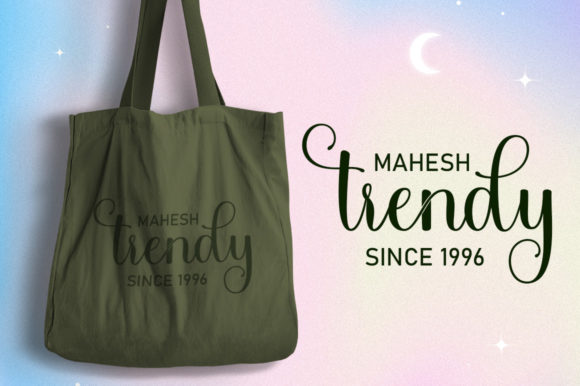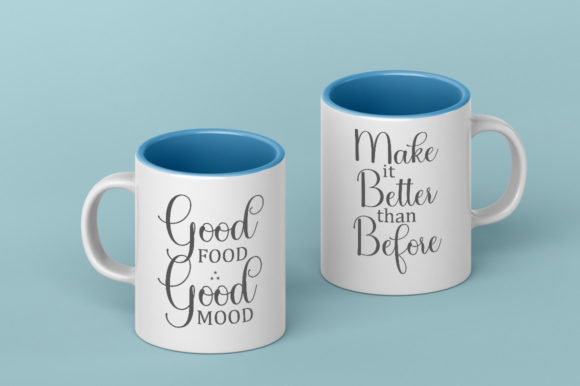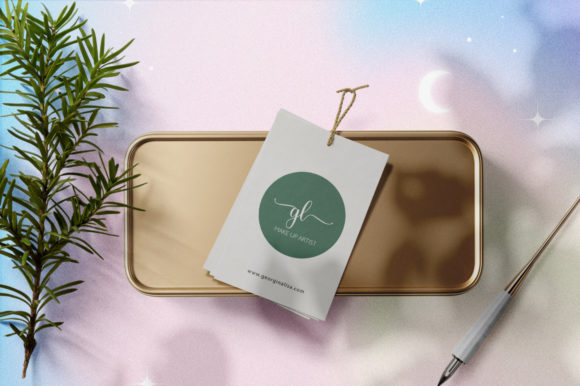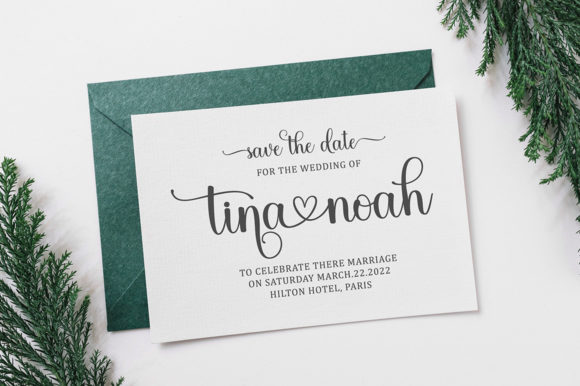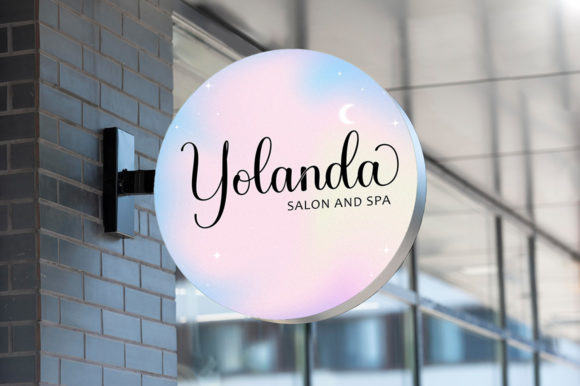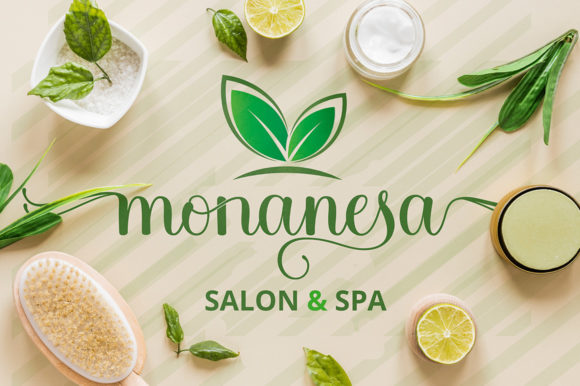
Bridal Ceremony Font: The Perfect Choice for Romantic Designs
Are you a designer or crafter looking for a font that exudes romance and elegance? Look no further than the Bridal Ceremony font. This beautiful script font is perfect for creating stunning title designs, invitations, and other materials that require a touch of sophistication and love. In this article, we’ll explore the features and benefits of the Bridal Ceremony font and how it can elevate your designs.
What is Bridal Ceremony Font?
Bridal Ceremony is a script font that is subtle, romantic, and has a very unique love swash. The font’s design is inspired by traditional calligraphy, with flowing lines and delicate curves that give it a feminine and elegant feel. The love swash feature adds a special touch to the font, making it perfect for designs that require a romantic and whimsical feel.
Features of Bridal Ceremony Font
The Bridal Ceremony font has several features that make it an excellent choice for designers and crafters. Some of its key features include:
- Unique Love Swash: The font’s love swash feature is a distinctive element that sets it apart from other script fonts. It’s perfect for adding a romantic touch to your designs.
- Subtle and Romantic: The font’s subtle and romantic design makes it perfect for creating elegant and sophisticated designs.
- Script Font: The Bridal Ceremony font is a script font that mimics traditional calligraphy, giving it a personal and handmade feel.
- Versatile: The font is versatile and can be used for a wide range of design projects, from title designs to packaging designs.
Uses of Bridal Ceremony Font
The Bridal Ceremony font is perfect for a wide range of design projects, including:
- Title Designs: Use the font to create stunning title designs for books, movies, and other projects.
- Invitations: The font is perfect for creating beautiful and elegant invitations for weddings, parties, and other events.
- Stationery Designs: Use the font to create custom stationery, including letterheads, greeting cards, and more.
- Branding and Logos: The font can be used to create elegant and sophisticated logos and branding materials.
- Greeting Cards: Use the font to create beautiful and heartfelt greeting cards for special occasions.
- T-Shirts and Apparel: The font is perfect for creating custom t-shirts and apparel with a romantic and elegant touch.
- Packaging Designs: Use the font to create stunning packaging designs for products, including gift boxes, labels, and more.
- Posters: The font can be used to create eye-catching posters for events, promotions, and more.
Benefits of Using Bridal Ceremony Font
The Bridal Ceremony font offers several benefits to designers and crafters, including:
- Elegance and Sophistication: The font adds an touch of elegance and sophistication to designs, making them perfect for high-end projects.
- Romantic Feel: The font’s romantic feel makes it perfect for designs that require a touch of love and whimsy.
- Versatility: The font can be used for a wide range of design projects, making it a valuable addition to any designer’s toolkit.
- Easy to Read: The font is easy to read, making it perfect for designs that require a clear and legible text.
In conclusion, the Bridal Ceremony font is a beautiful and elegant script font that is perfect for designers and crafters looking to add a touch of romance and sophistication to their designs. With its unique love swash feature, subtle and romantic design, and versatility, this font is an excellent choice for a wide range of design projects. Whether you’re creating title designs, invitations, stationery, or packaging designs, the Bridal Ceremony font is sure to elevate your designs and make them stand out.